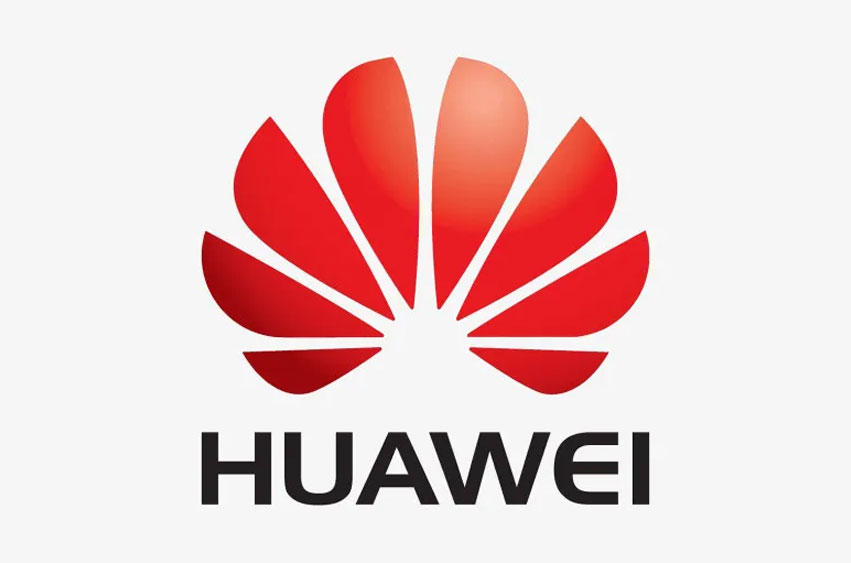
Huawei Logo Font
Huawei Logo Font is one of the premier telecommunications and mobile phone manufacturing companies headquartered in Shenzhen (China). Established by Ren Zhengfei – an engineer from the Chinese People’s Liberation Army. Huawei began operations in 1987.
Huawei unveiled their current logo in March 2018. The flower part has been removed from gradient, while Huawei Red was added as its primary hue – this creates a flatter appearance and also loosens up font spacing below it; also altering “E” letters from earlier arc designs.